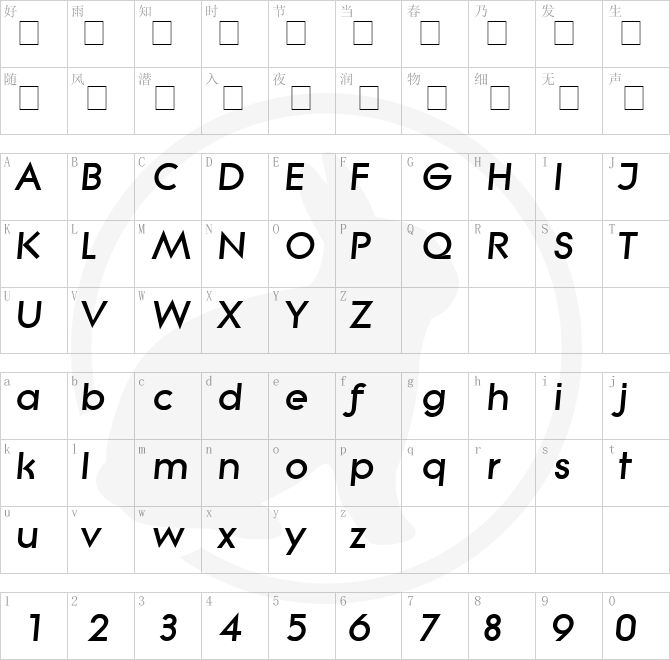
Sabor-Display-SSi-Italic.ttf is a very beautiful artistic font, Sabor-Display-SSi-Italic.ttf is widely used in the design and printing of various books and pictures,Sabor-Display-SSi-Italic.ttf has a strong visual impact,Sabor-Display-SSi-Italic.ttf is a commonly used font in newspapers, magazines and books, and is used in posters, e-commerce Poster design, store design, logo design, font design and other fields.Sabor-Display-SSi-Italic.